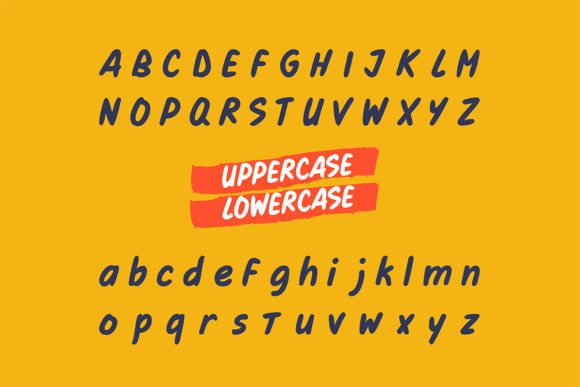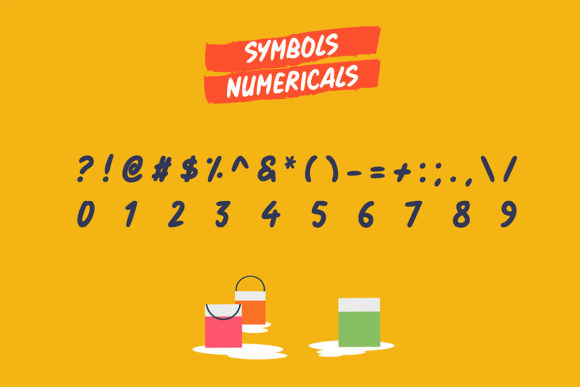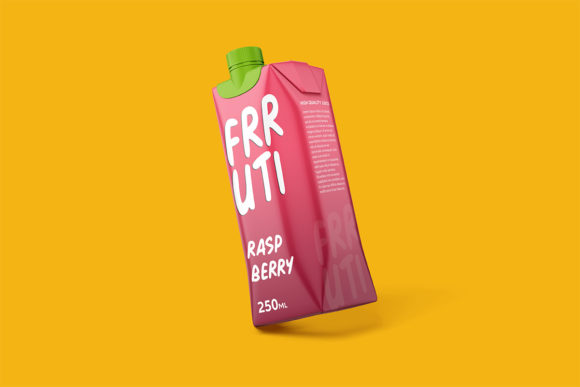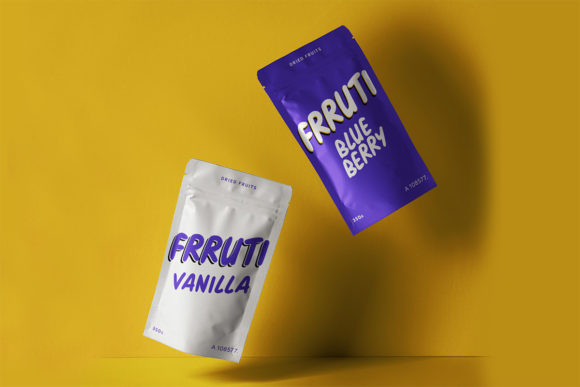
Introduction to Frrutti Font
Have you ever found yourself in a creative jam, staring at a blank page, and desperately seeking the perfect font to bring your design to life? I’m sure you have. It’s that moment when everything else seems to be in place, but the typography just doesn’t feel right. Well, put your worries aside, because I’m here to introduce you to a game-changer – the Frrutti Font.
This high-quality, free download is a true gem for designers. With its casual charm and down-to-earth feel, Frrutti Font is the perfect addition to any design project. Its versatility shines through, whether you’re working on a busy background or need a standalone headline that pops. And the best part? It’s available for free, making it an invaluable resource for any creative project.
Key Features of Frrutti Font
- Perfect for digital design projects, such as graphics, logos, and icons, due to its modern and playful aesthetic.
Honest Review: Frrutti Font
As a designer, I’m always on the lookout for high-quality design resources that can elevate my creative projects. The Frrutti Font is one such resource that I recently came across. With a free download available, I was excited to see how it would perform.
Here are some aspects that I think work well for the Frrutti Font: ✨
- Unique and playful design style
- Transparent background makes it easy to layer and customize
However, I did encounter some limitations with the Frrutti Font: ⚠️
- Some characters may not be suitable for formal or professional projects
- Limited character set may require additional fonts for comprehensive use
Overall, I think the Frrutti Font is a great addition to any design resource collection. Its playful design style and transparent background make it perfect for creative projects where a bit of whimsy is needed. While it may not be suitable for all types of projects, I appreciate the high quality and flexibility it offers.
How to Use Frrutti Font
Frrutti Font is a high-quality, free download design resource perfect for any creative project. With its unique and playful style, this font is ideal for adding a touch of whimsy to your designs.
Tips for Getting the Most Out of Frrutti Font
To get the most out of Frrutti Font, be sure to use it with a transparent background to allow for maximum flexibility and customization. You can also experiment with different font sizes, colors, and combinations to create unique and eye-catching designs.
Frrutti Font is perfect for use in a variety of creative projects, including digital invitations, social media graphics, and marketing materials. Its playful and whimsical style makes it ideal for adding a touch of fun and personality to your designs.